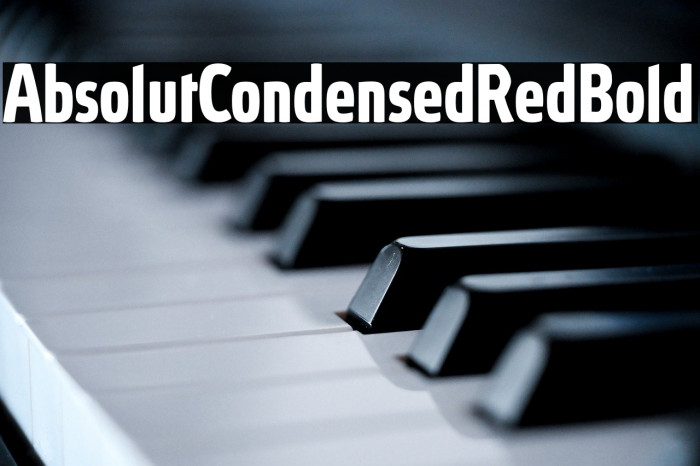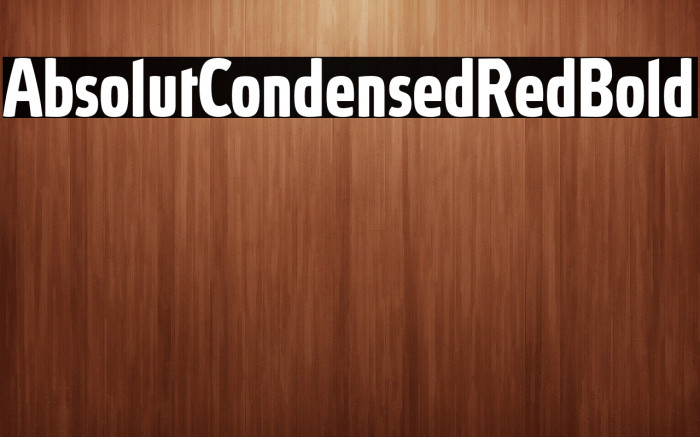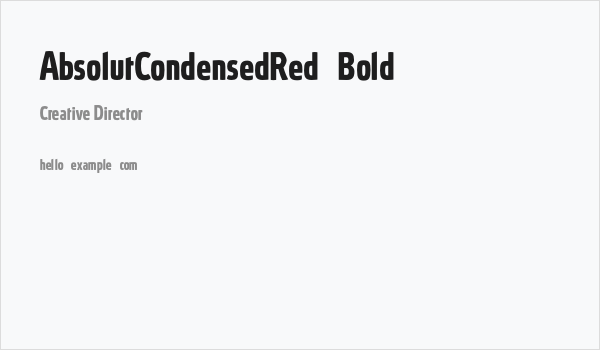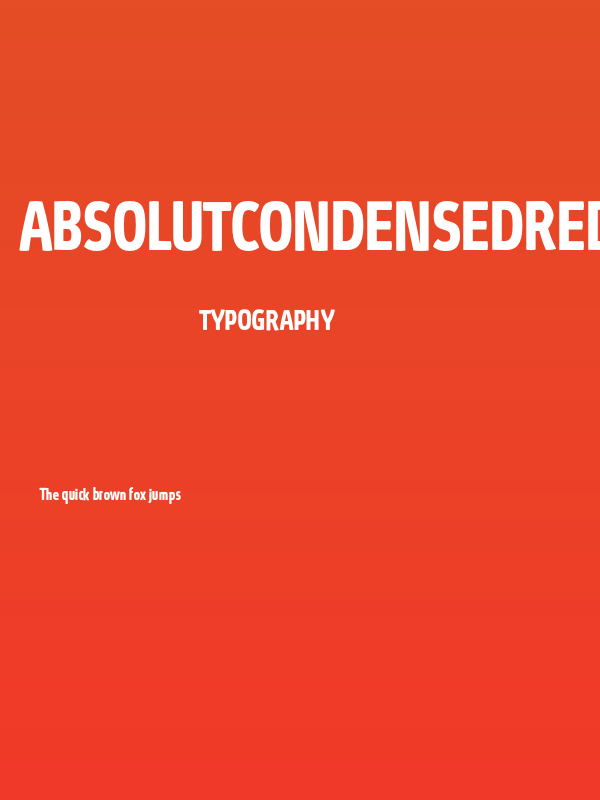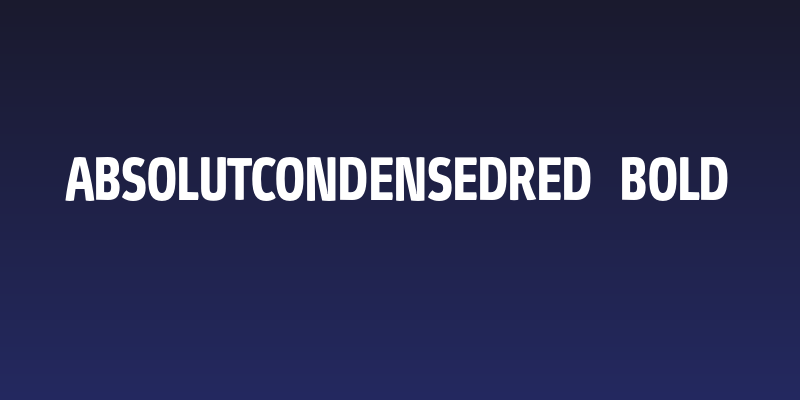
AbsolutCondensedRed-Bold Font
AbsolutCondensedRed-Bold Description
This font features a bold and condensed style, characterized by its strong and impactful presence. The uppercase letters are tall and narrow, while the lowercase letters maintain a consistent width, enhancing readability. The strokes are uniform, with minimal contrast, giving it a modern and clean look. The design is straightforward, with smooth curves and sharp edges, making it suitable for attention-grabbing headlines and titles. Its condensed nature allows for efficient use of space, making it ideal for projects where space is limited but impact is necessary.
| Proposed Projects | Ideal for headlines, posters, advertising, and branding where a strong visual impact is needed. |